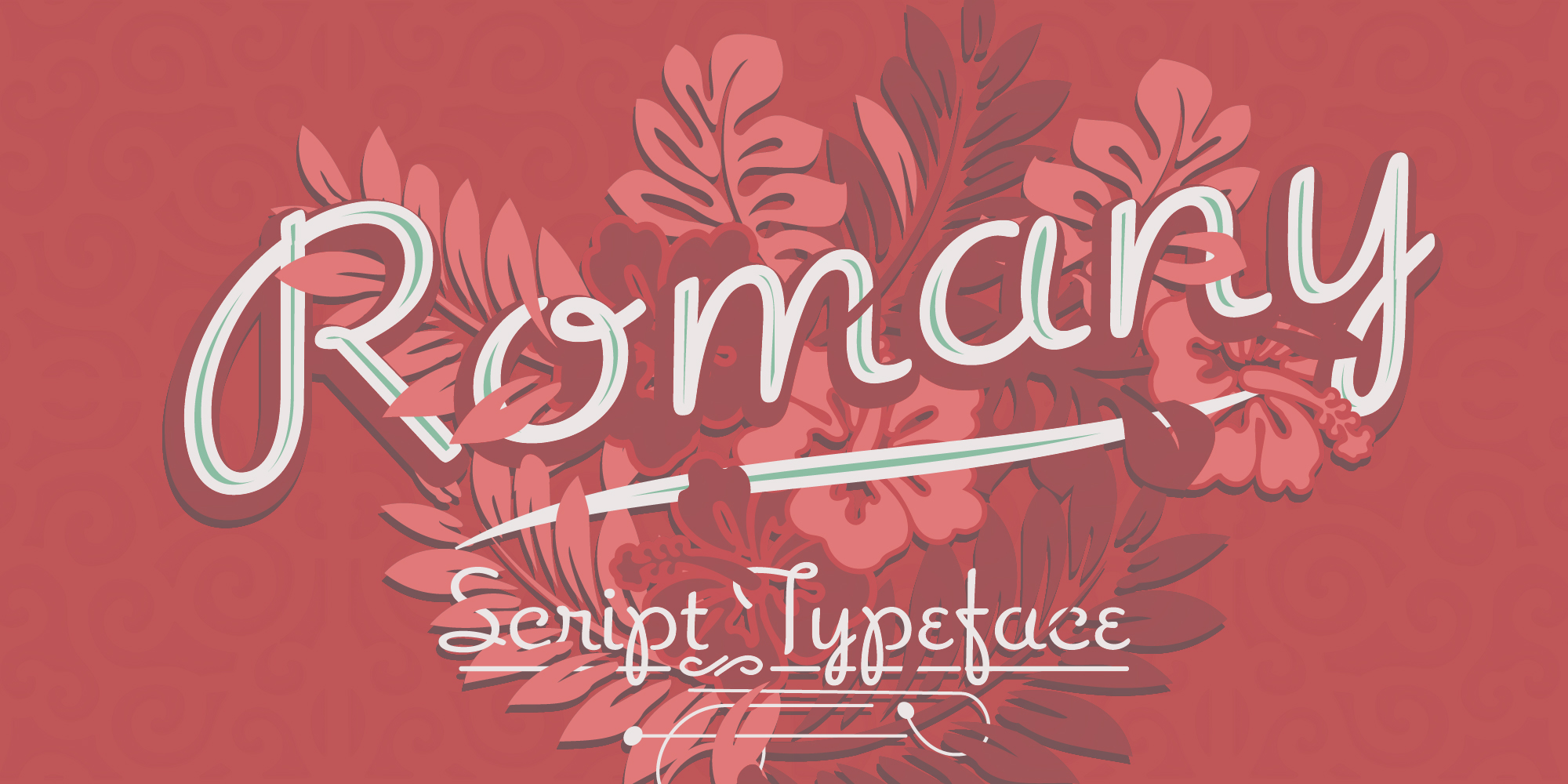
Romany Font excels in bohemian branding, folk art projects, cultural festival promotions, artisanal product packaging, vintage travel posters, ethnic restaurant menus, world music album covers, nomadic lifestyle blogs, traditional craft signage, and multicultural event materials where authentic cultural expression and wanderlust aesthetics create compelling visual narratives.
What makes Romany Font exciting is its authentic capture of traditional nomadic calligraphy that reflects the rich cultural heritage and artistic traditions of traveling communities. This font features organic letterforms with distinctive character variations, decorative flourishes, and hand-crafted irregularities that convey warmth, authenticity, and cultural depth. The expressive strokes and rhythmic flow create an intimate connection with readers while maintaining excellent readability across various applications.
Romany Font family includes Regular, Bold, and Italic variations, each preserving the font's characteristic cultural authenticity while offering different levels of visual emphasis. The family also features decorative elements, ornamental borders, and stylistic alternates that enhance the traditional aesthetic. Each weight maintains the font's distinctive handcrafted character while providing flexibility for complex typographic hierarchies.
The Romany Font Free Download provides designers with access to typography that celebrates cultural diversity and artistic heritage. This font's expressive qualities make it perfect for storytelling applications, cultural documentation, and brands seeking to convey authenticity and human connection. Its versatility extends to modern applications including digital interfaces, social media graphics, and contemporary design projects requiring genuine cultural expression.
Romany Font supports extensive character sets including accented letters, cultural symbols, and decorative elements that enhance its multicultural appeal. The font's carefully crafted metrics ensure proper spacing and alignment while preserving the natural variations that define its handmade character. Its scalability maintains clarity and cultural authenticity from small text applications to large display sizes.
The font's expressive presence makes it particularly effective for editorial design, cultural publications, and artistic projects where personality and cultural authenticity are essential. Whether designing travel magazines, cultural event materials, or artisanal brand communications, Romany Font delivers genuine cultural aesthetics that honor traditional craftsmanship while engaging contemporary audiences effectively.